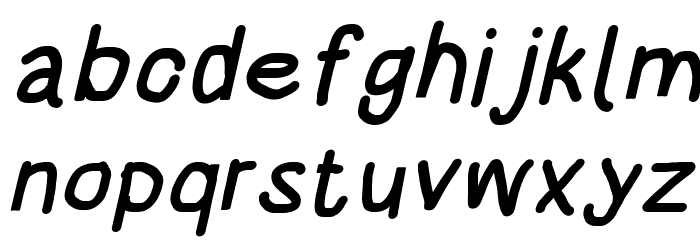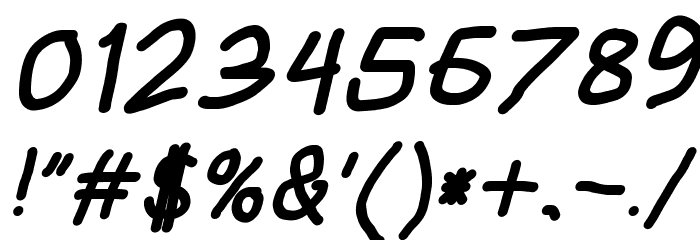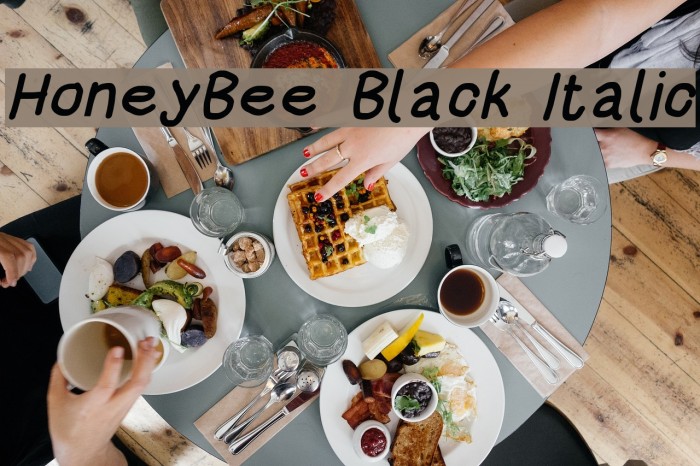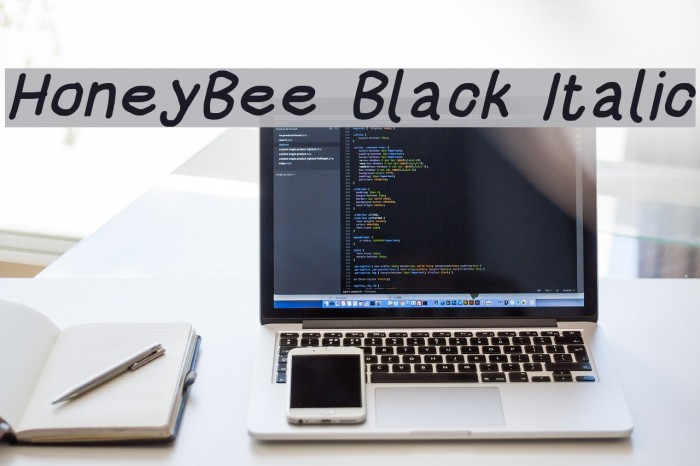
HoneyBee Black Italic Font
This font features a playful and energetic script style, characterized by its bold and italicized form. The letters have a smooth, flowing appearance, with rounded edges and a slight slant that adds a sense of motion and dynamism. The uppercase and lowercase letters are well-balanced, maintaining a consistent stroke width throughout. The numbers and special characters follow the same stylistic cues, ensuring a cohesive look across all elements. This font's lively and informal nature makes it ideal for projects that require a touch of personality and flair.
A bold, italic script font with a playful and dynamic style.
- Proposed Projects: Great for greeting cards, playful branding, children's books, and creative posters.
- Category: Script
- Overall Style: Playful
- Use Case: Logos, Headlines, Creative projects